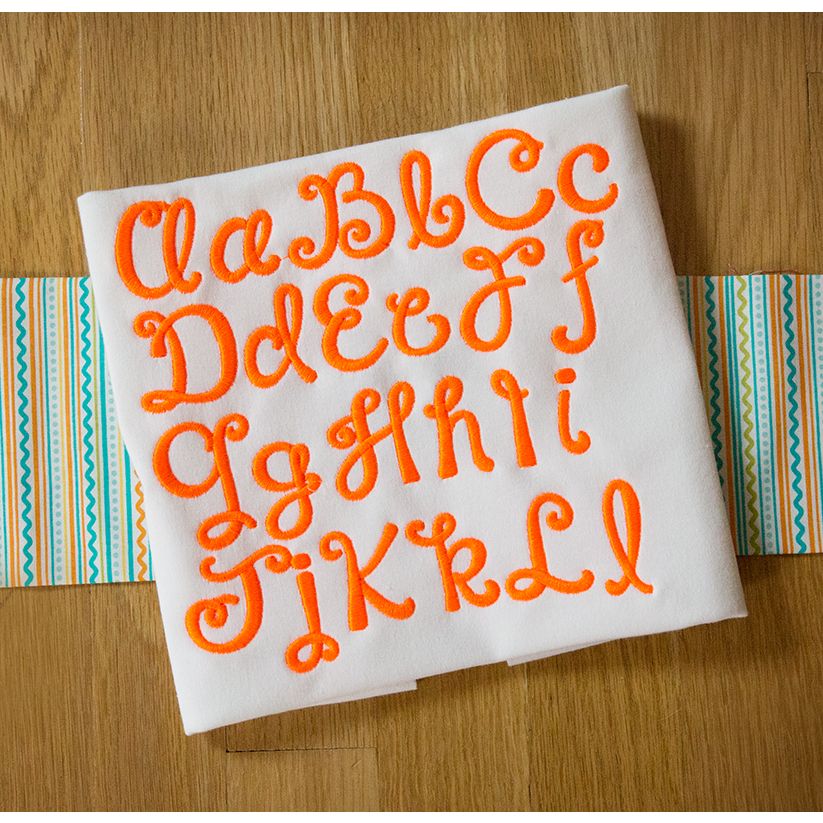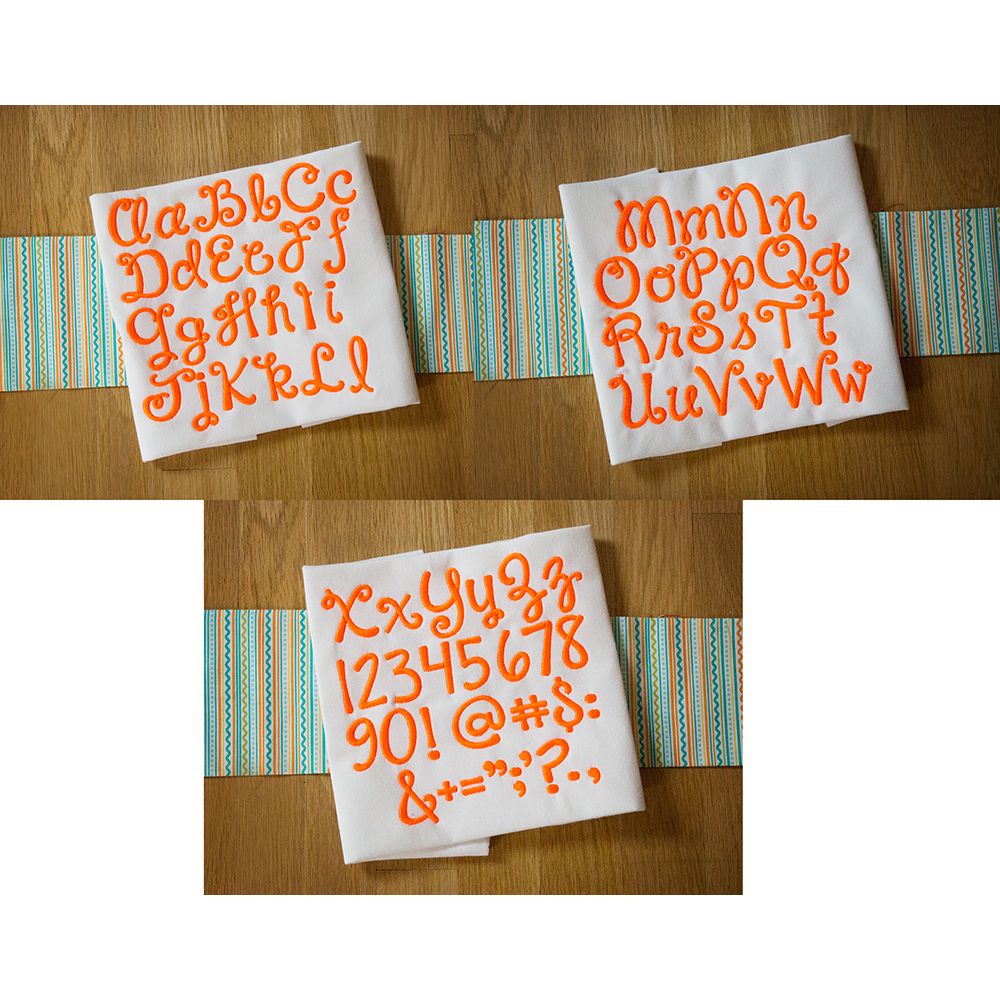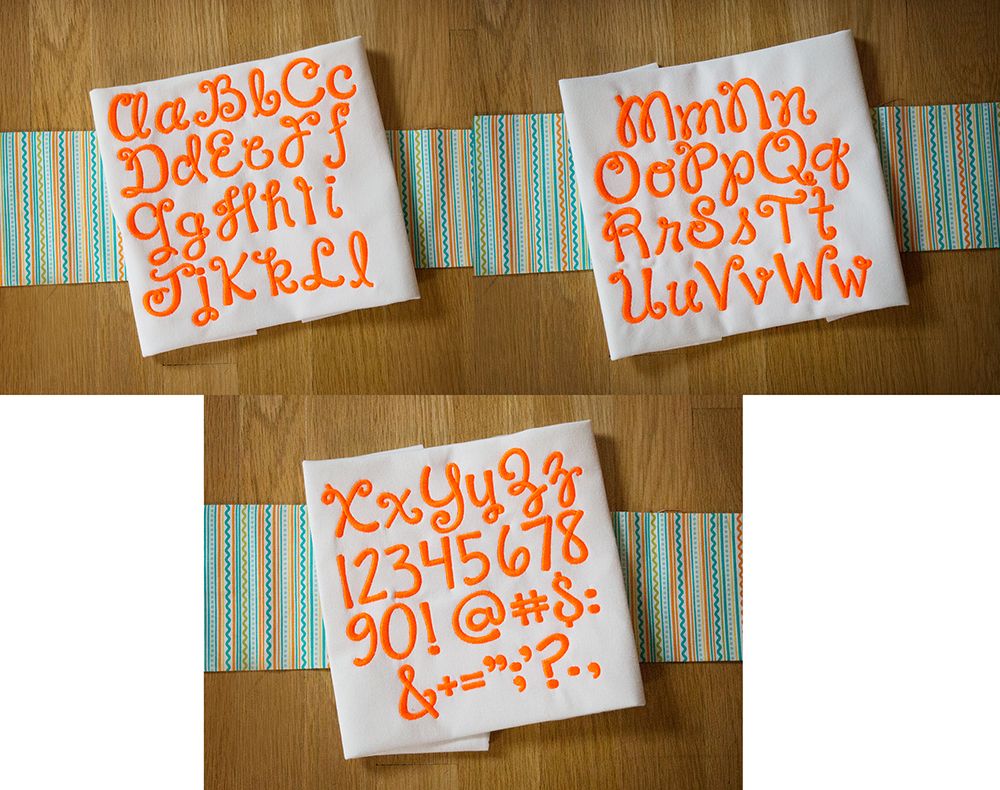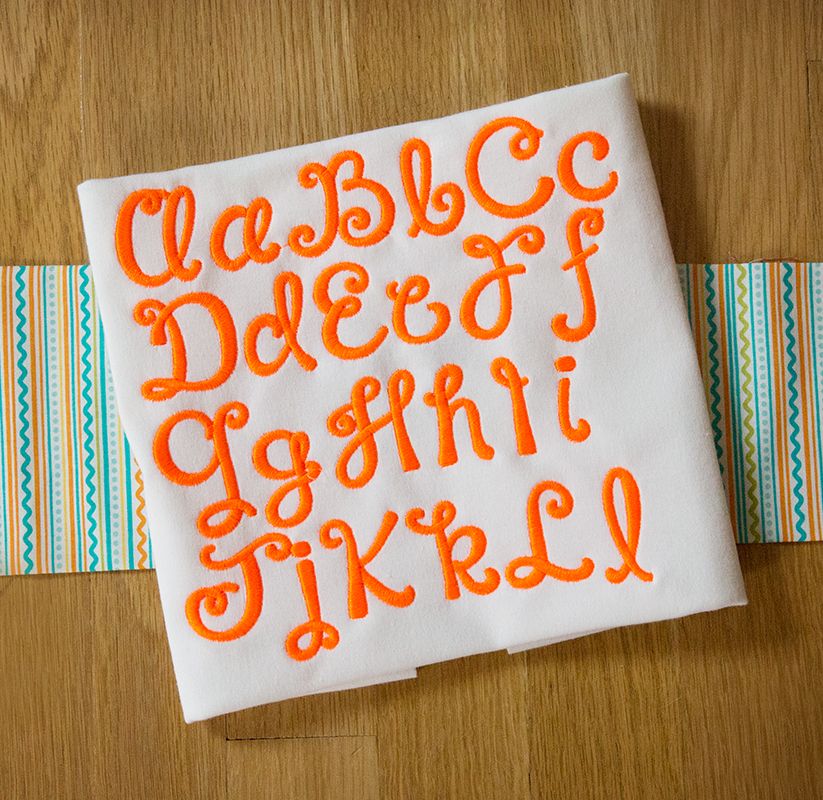
Happy Day Satin Stitch Embroidery Font
A fun and cheery script font that is nice and bold.  All of our font alphabets are 100% manually digitized to bring you maximum stitch quality.